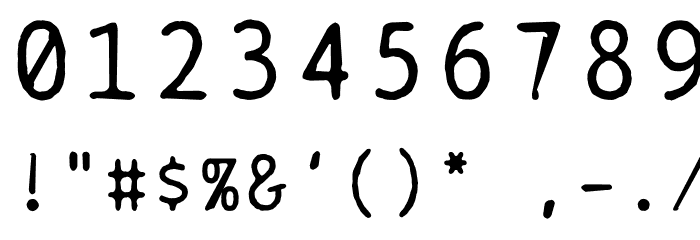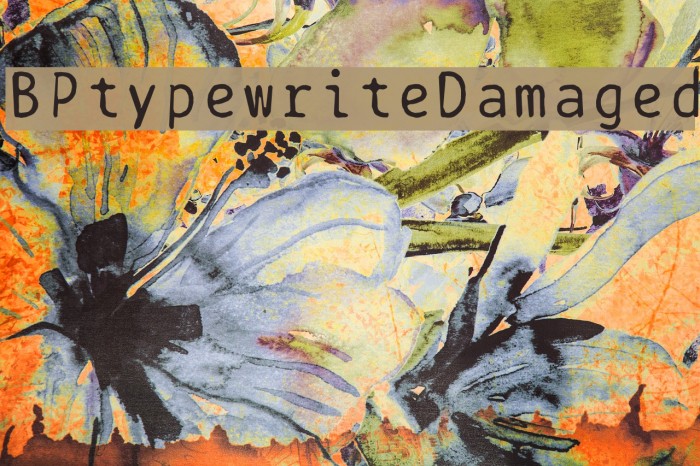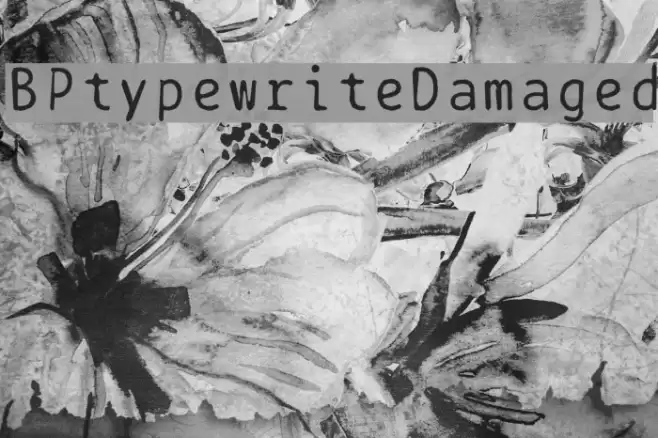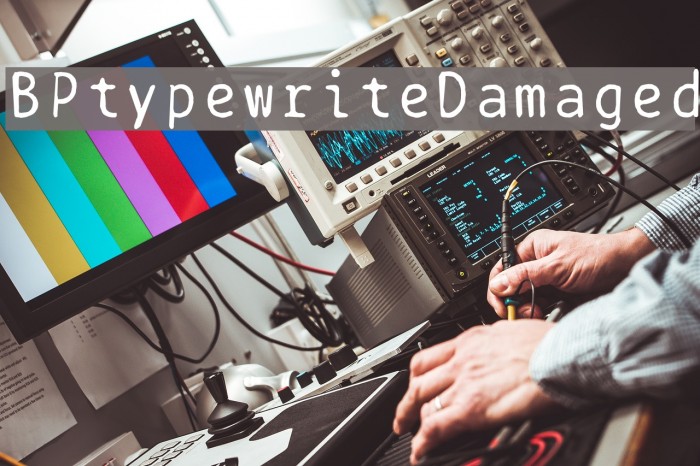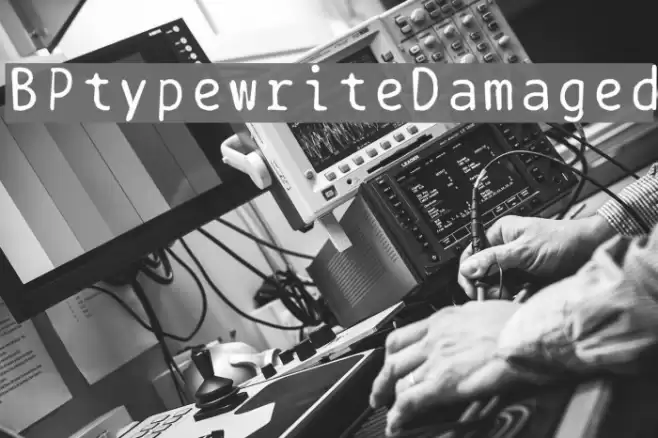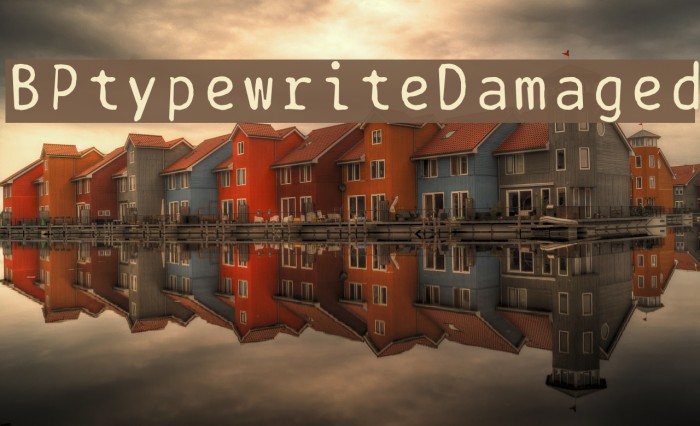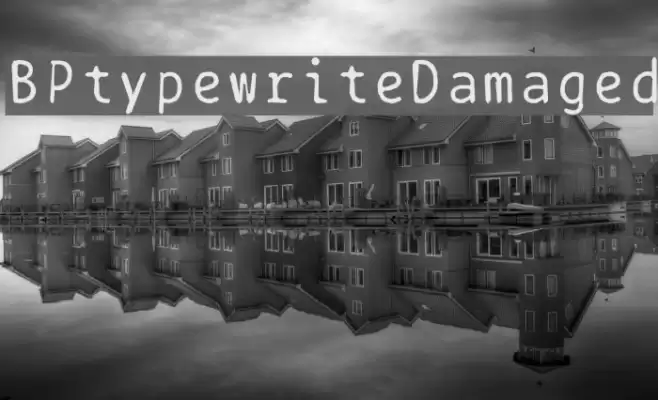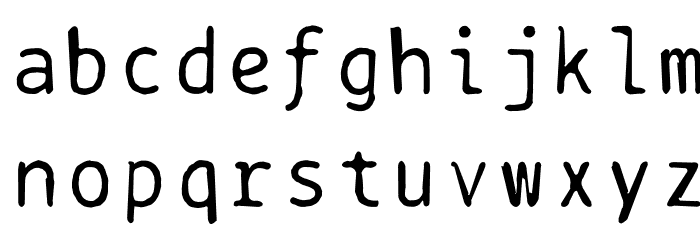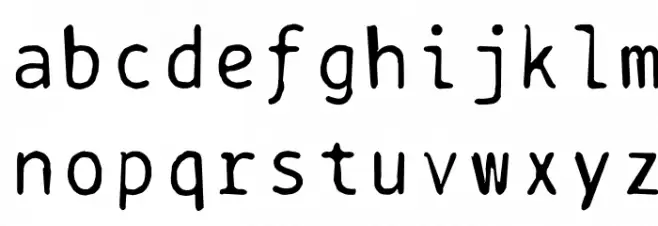
BPtypewriteDamaged Font
BPtypewriteDamaged Description
This font exhibits a charming, vintage typewriter style with a slightly distressed appearance. The characters have an organic, hand-drawn quality, featuring irregularities that add to its unique personality. The uppercase and lowercase letters maintain a consistent style, with rounded edges and a playful, informal look. The numerals and special characters follow the same aesthetic, ensuring a cohesive appearance across all glyphs. This font's imperfect lines and subtle variations in stroke width give it a warm, approachable feel, making it ideal for projects that require a touch of nostalgia or a personal touch.